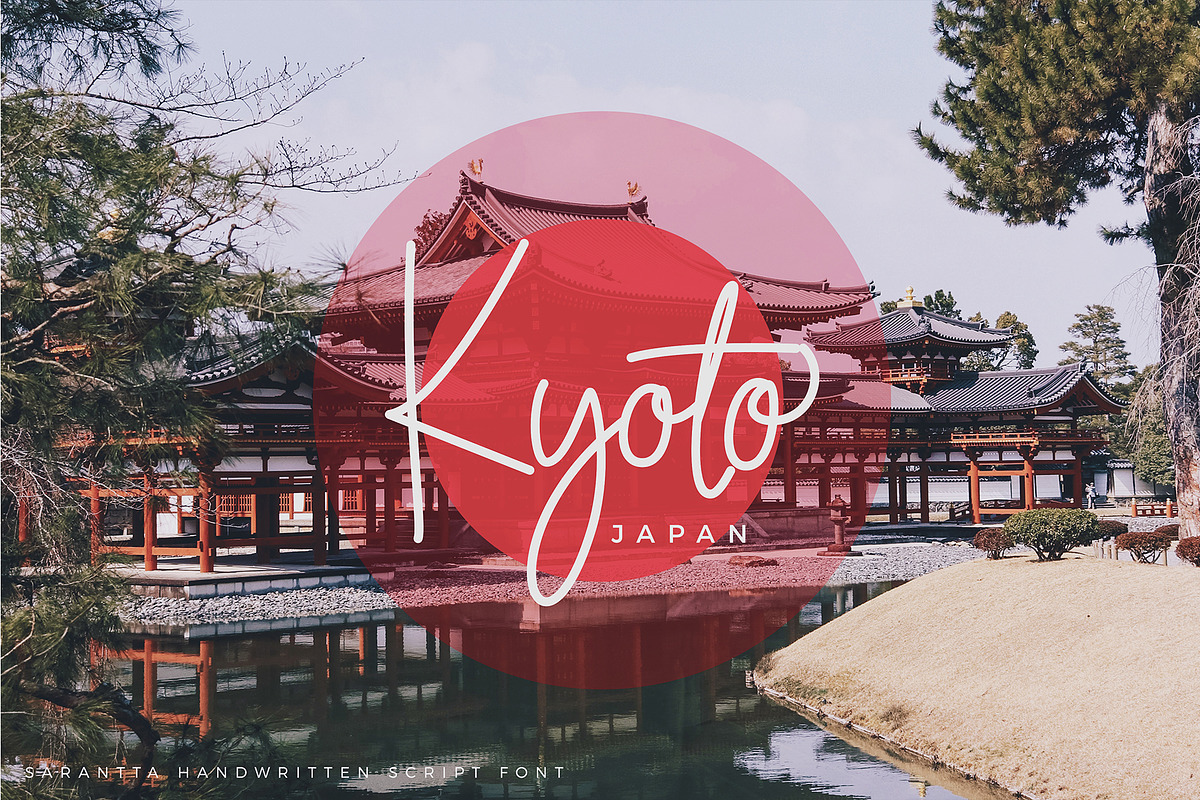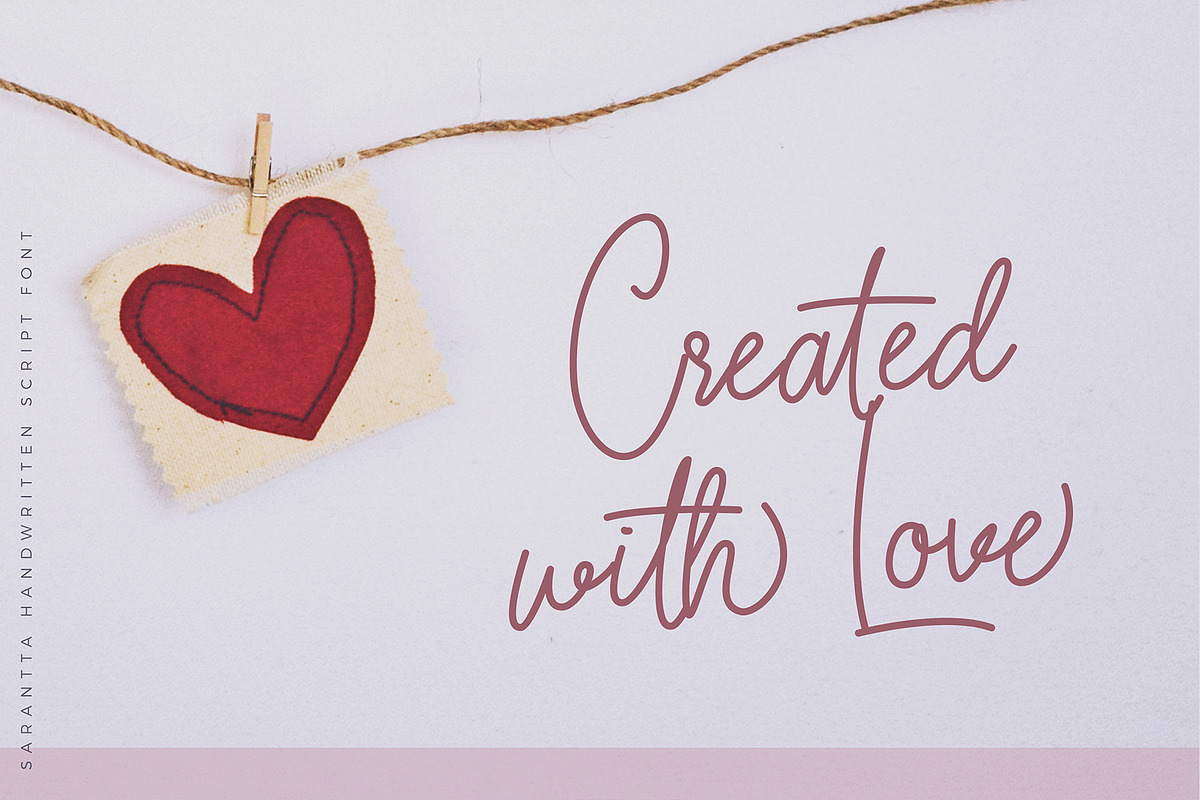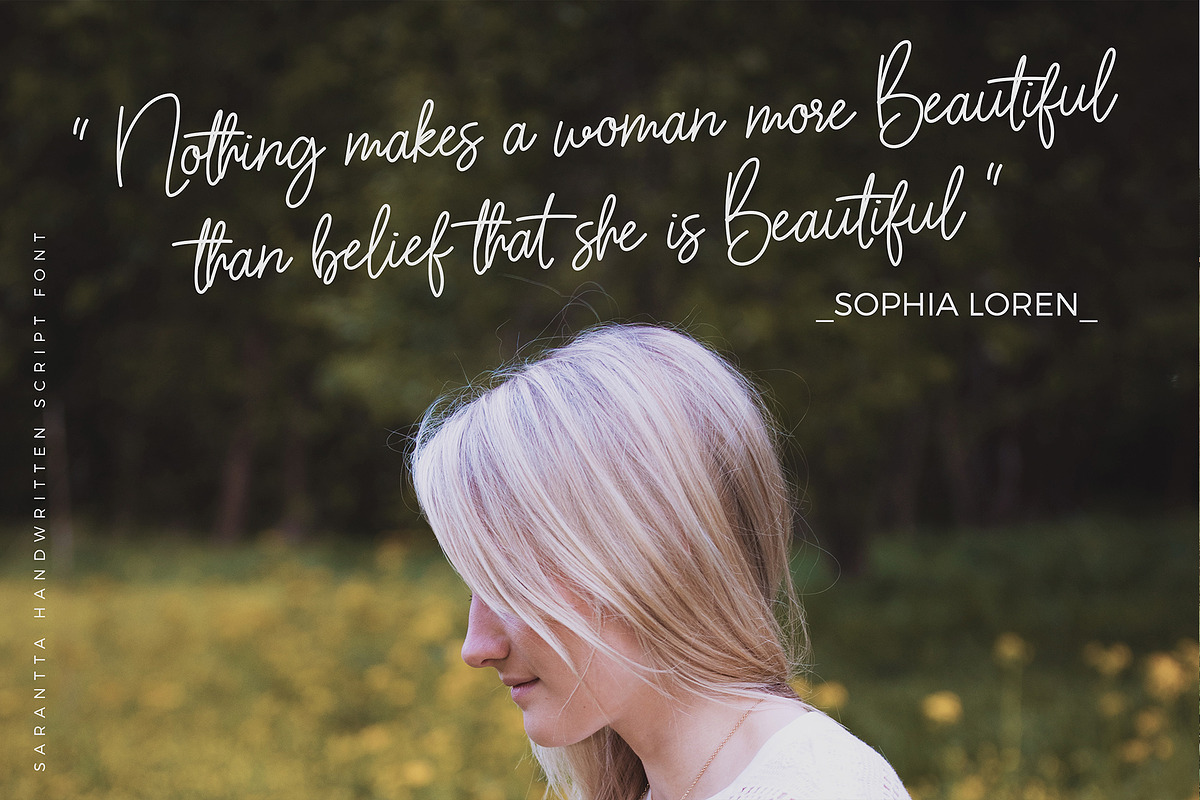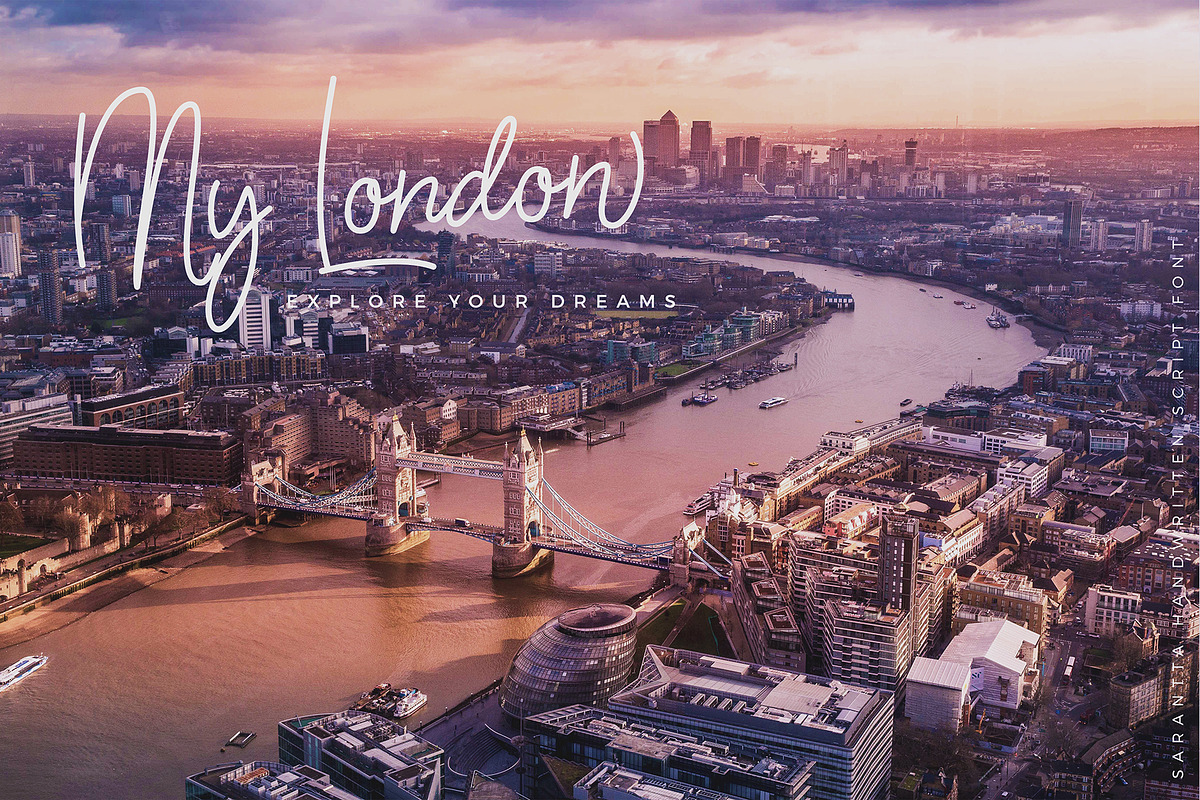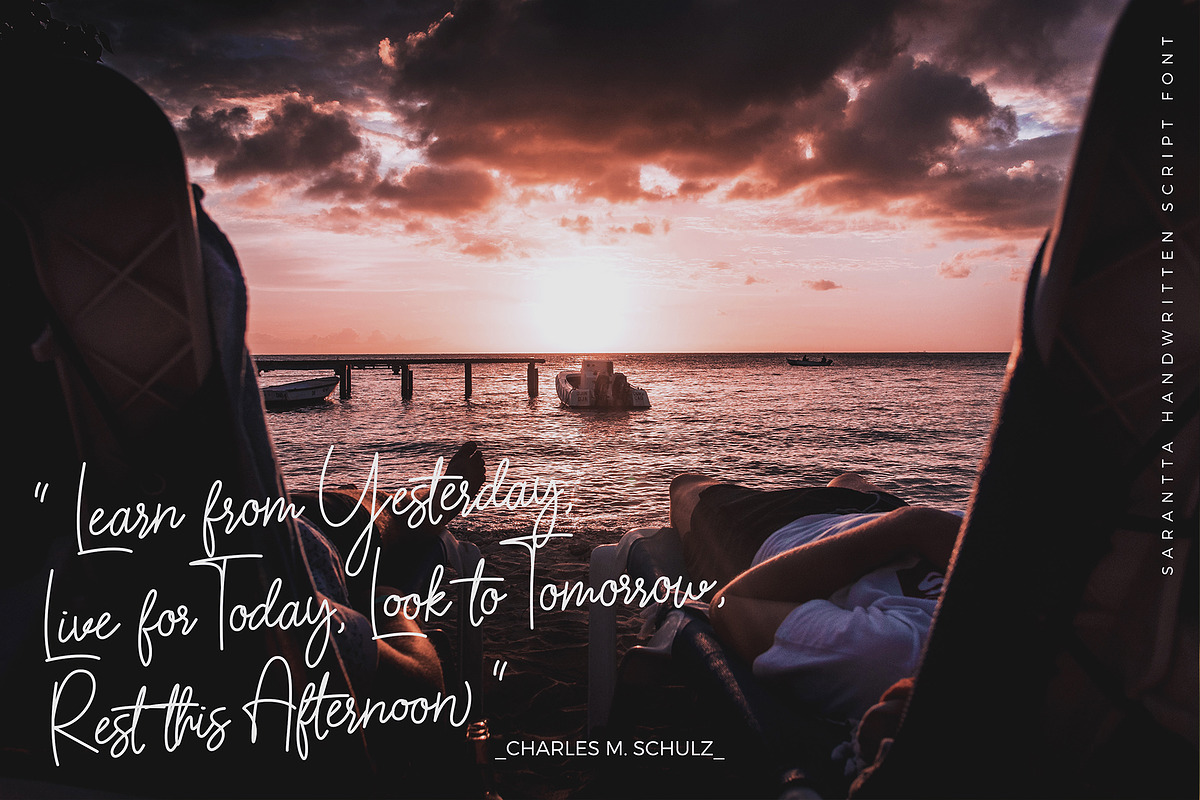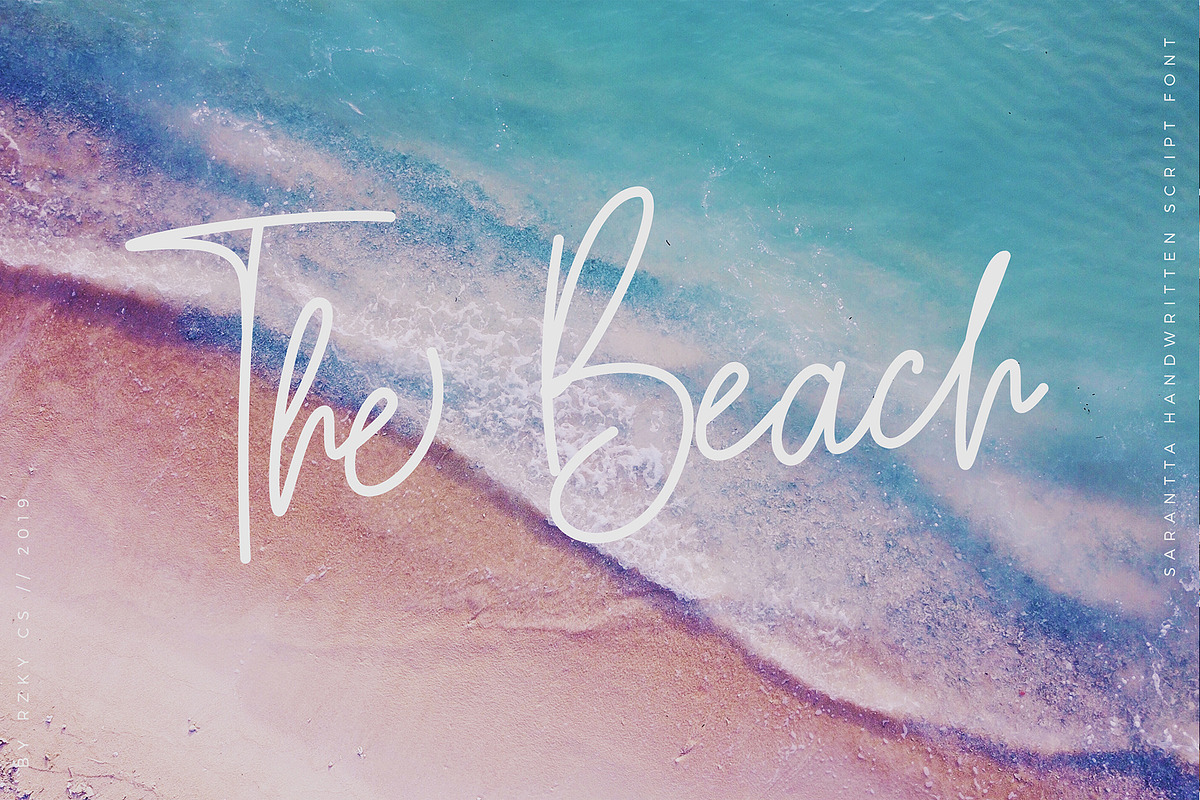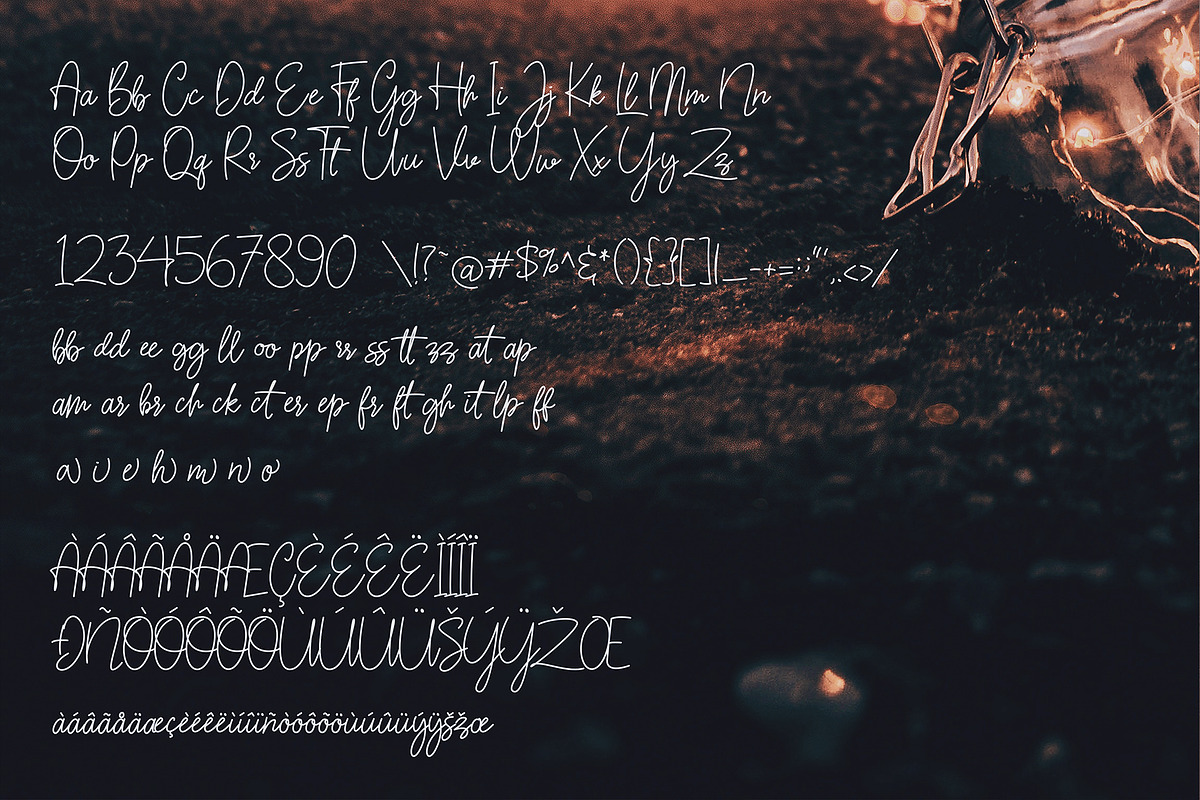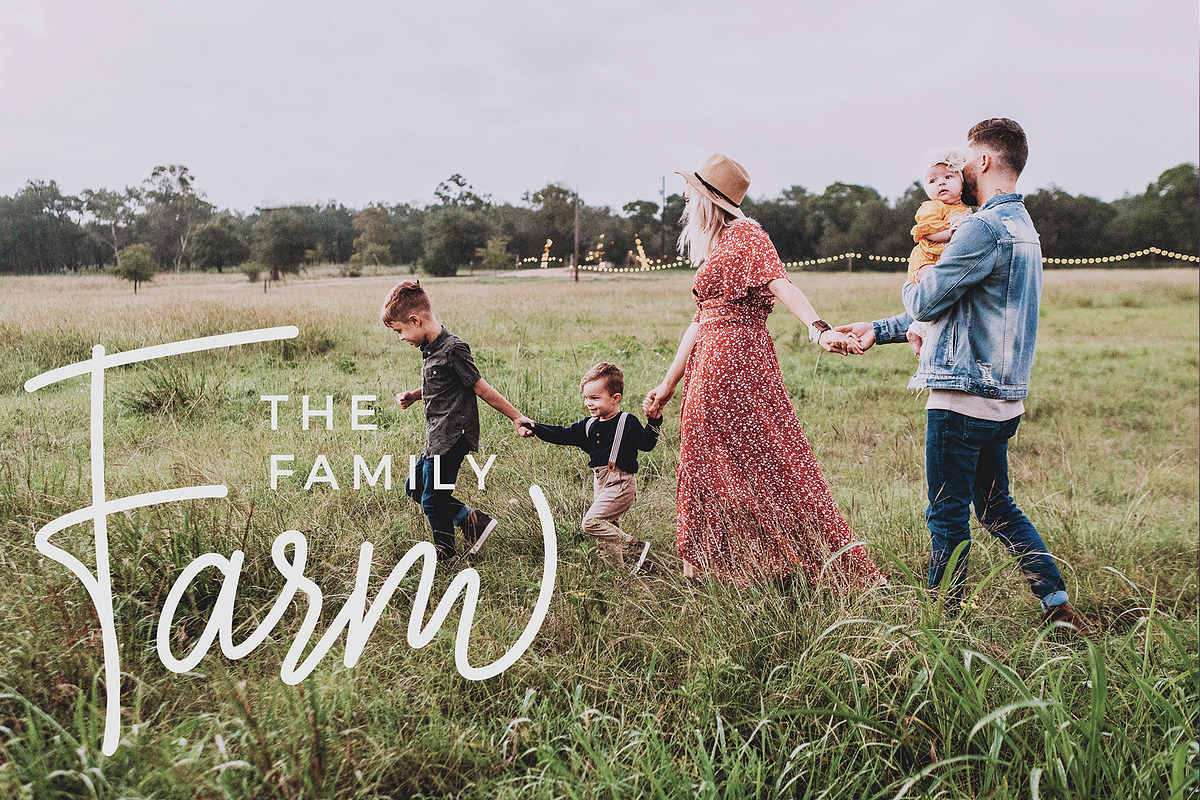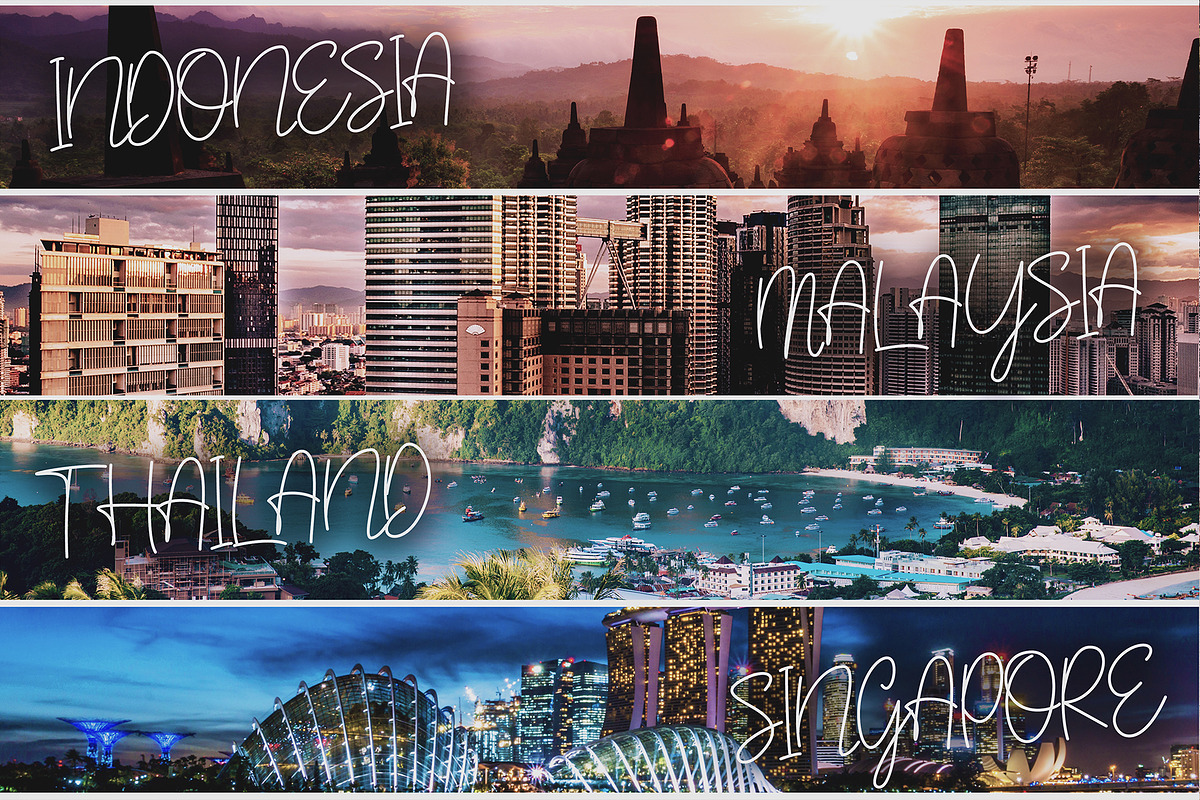
Sarantta | Handwritten Script Font
Introducing the new font + Bonus Instagram Stories
Sarantta is a modern script. Font with love useful for you who needs a typeface for headline, logotype, special event, travel promo, fashion event, apparel, invitation, branding, packaging, advertising etc.
This typeface is comes in uppercase, lowercase, punctuation, numeral, ligatures, alternate & multilingual. there will always be updates on the ligature and alternate.